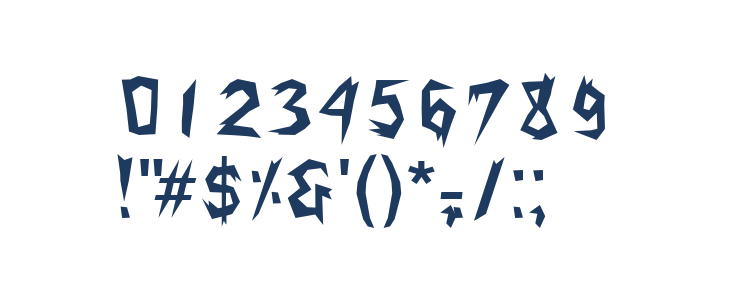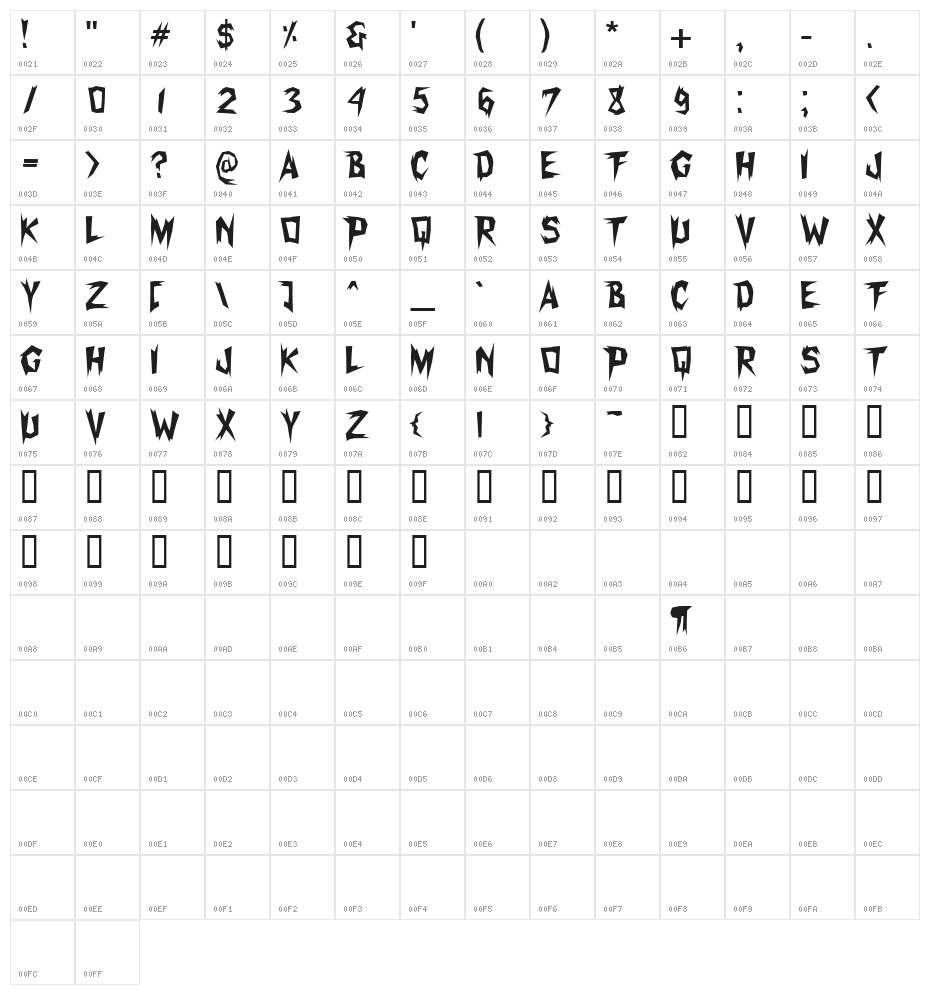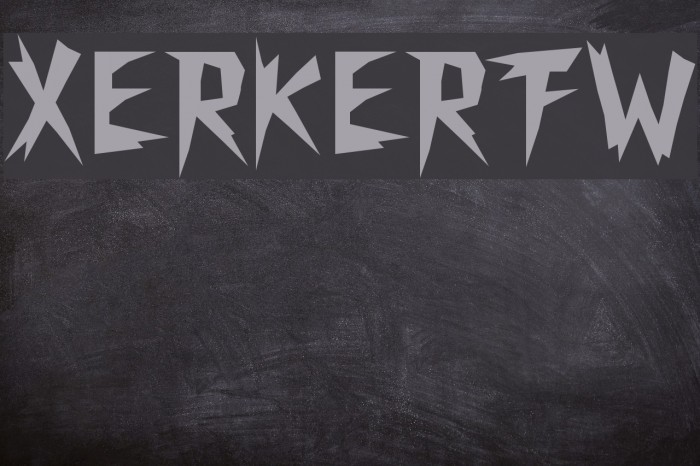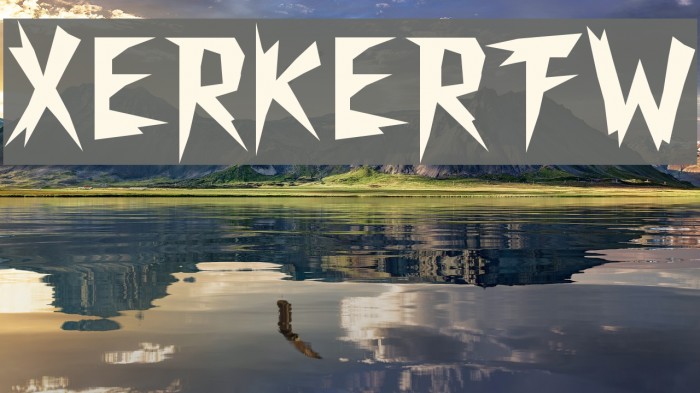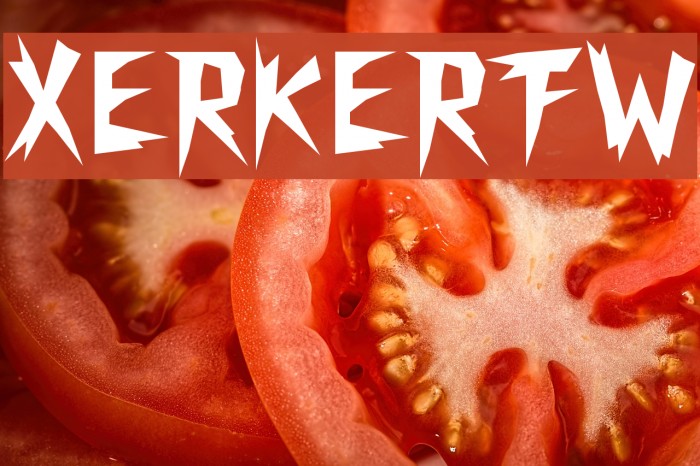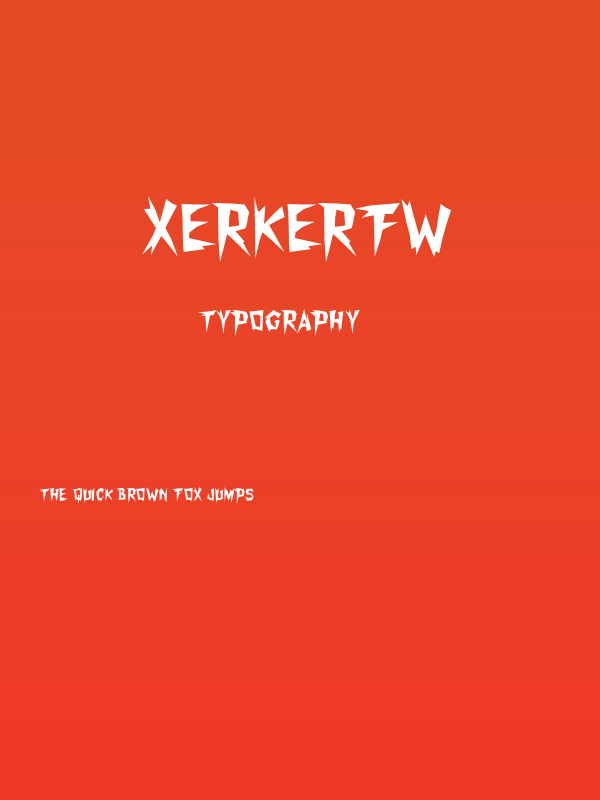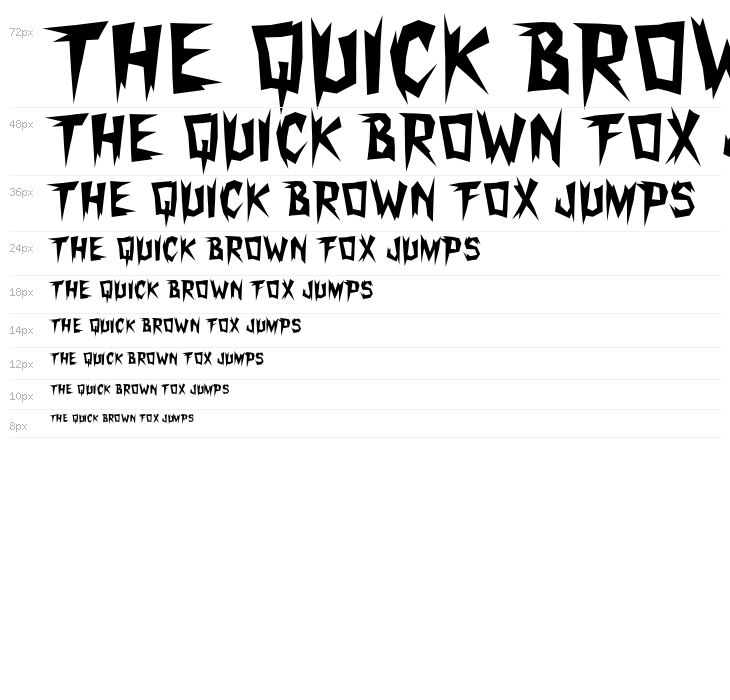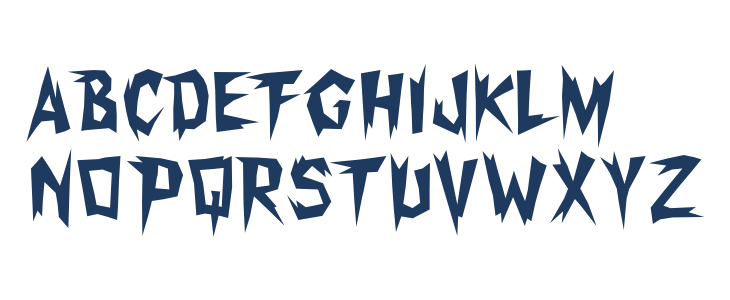
XerkerFW Font
XerkerFW Description
This font features a bold and aggressive design with sharp, jagged edges that give it a dynamic and energetic appearance. The characters are heavily stylized, resembling shards or lightning bolts, which adds a sense of movement and intensity. The uppercase and lowercase letters maintain a consistent style, with angular cuts and pointed tips. Numbers and special characters follow the same design principles, ensuring a cohesive look across all glyphs. The font's unique style makes it stand out, making it suitable for projects that require a strong visual impact.
| Overall Style | Modern, Edgy |
| Proposed Projects | Ideal for music album covers, video game titles, sports team logos, or any project needing a bold, edgy aesthetic. |